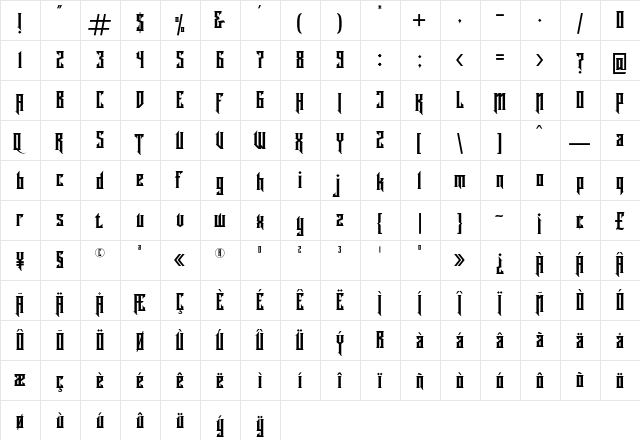
Rademos Regular
| Foundry | Stringlabs |
| Designer | Stringlabs |
Design Context for Rademos Typeface
Rademos is a composed and adaptable typeface that performs quietly and consistently across a wide range of design contexts.